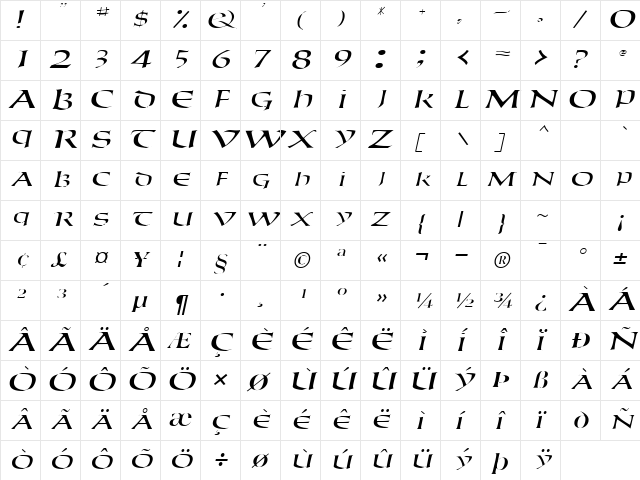
ParaketteSCapsSSK Italic
Design Context for ParaketteSCapsSSK Typeface
ParaketteSCapsSSK takes a measured approach to typography — its balanced proportions and neutral character make it a reliable workhorse for both digital and print work. The slanted form adds forward momentum and visual energy.
Pro Tip: Try ParaketteSCapsSSK for annotation and caption copy alongside an upright companion — the contrast in angle creates a dynamic but ordered typographic system.